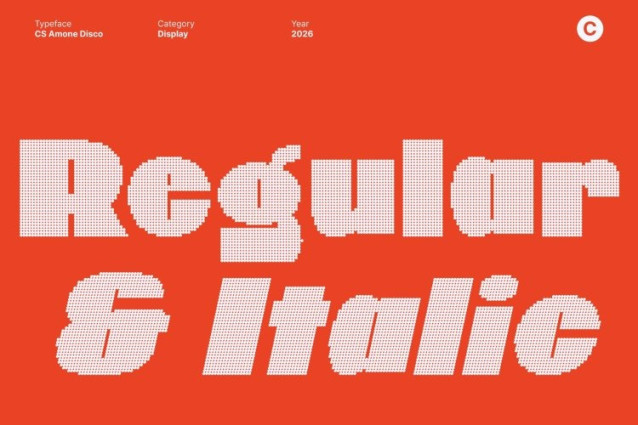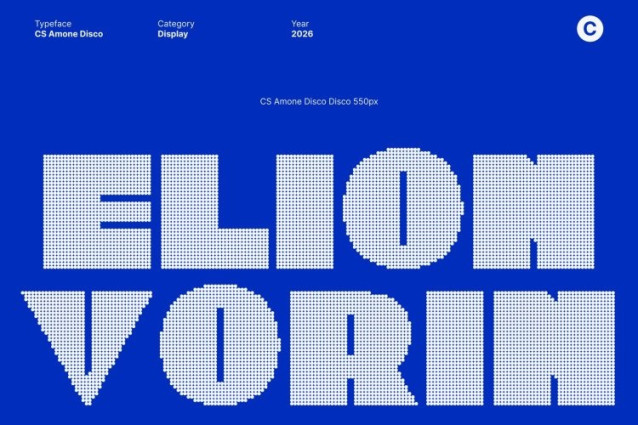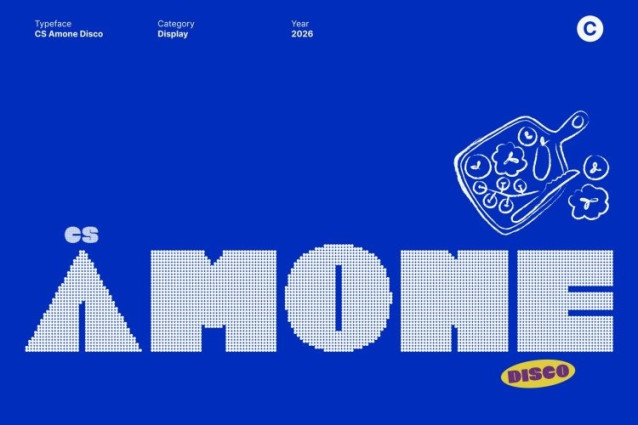
CS Amone Disco Font
CS Amone Disco Font This is a bold display sans serif font designed to project confidence, strength, and unmistakable visual authority. Built with heavy strokes and commanding proportions, it delivers an assertive impact that immediately captures attention. Every word feels intentional and powerful, ensuring your message stands out with clarity and force.
Strong Letterforms with Disco-Driven Weight
Each letterform is crafted with substantial weight and balanced structure, creating a stable and confident appearance. Thick strokes and bold silhouettes give the font a muscular character, while the disco-inspired style introduces rhythm, shine, and dynamic movement evoking flashing lights and vibrant retro fashion.
Designed to Command Attention with Festive Energy
This font thrives in designs where impact is essential. Its bold personality makes it ideal for headlines, posters, and hero text that demand visibility and excitement. The added disco energy transforms strong typography into a celebration loud, lively, and impossible to ignore.
Perfect for Impactful Branding and Party-Ready Visuals
Ideal for branding, advertising, merchandise, and promotional materials, this font helps express a confident and expressive brand identity. Perfect for logos, campaign visuals, event graphics, and bold editorial layouts, this font captures the energy of the dance floor, retro glamour, and festive nightlife leaving a lasting, high-impact impression.